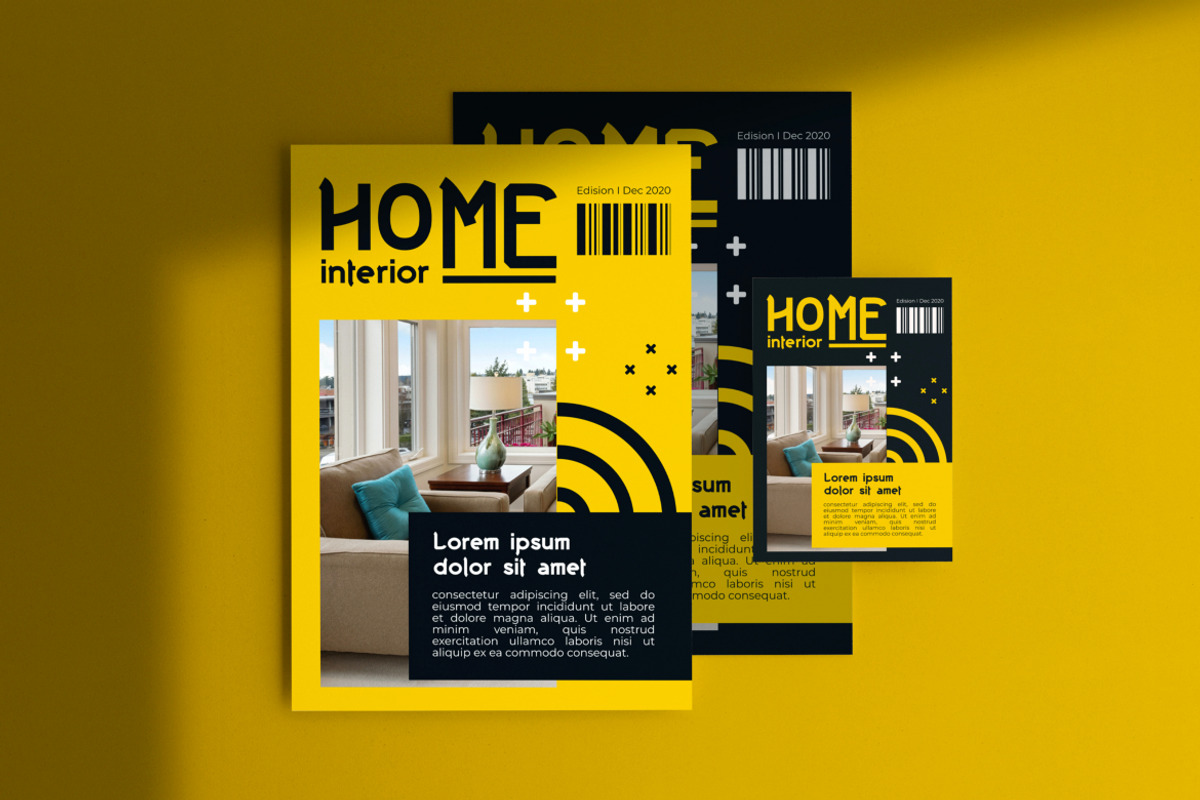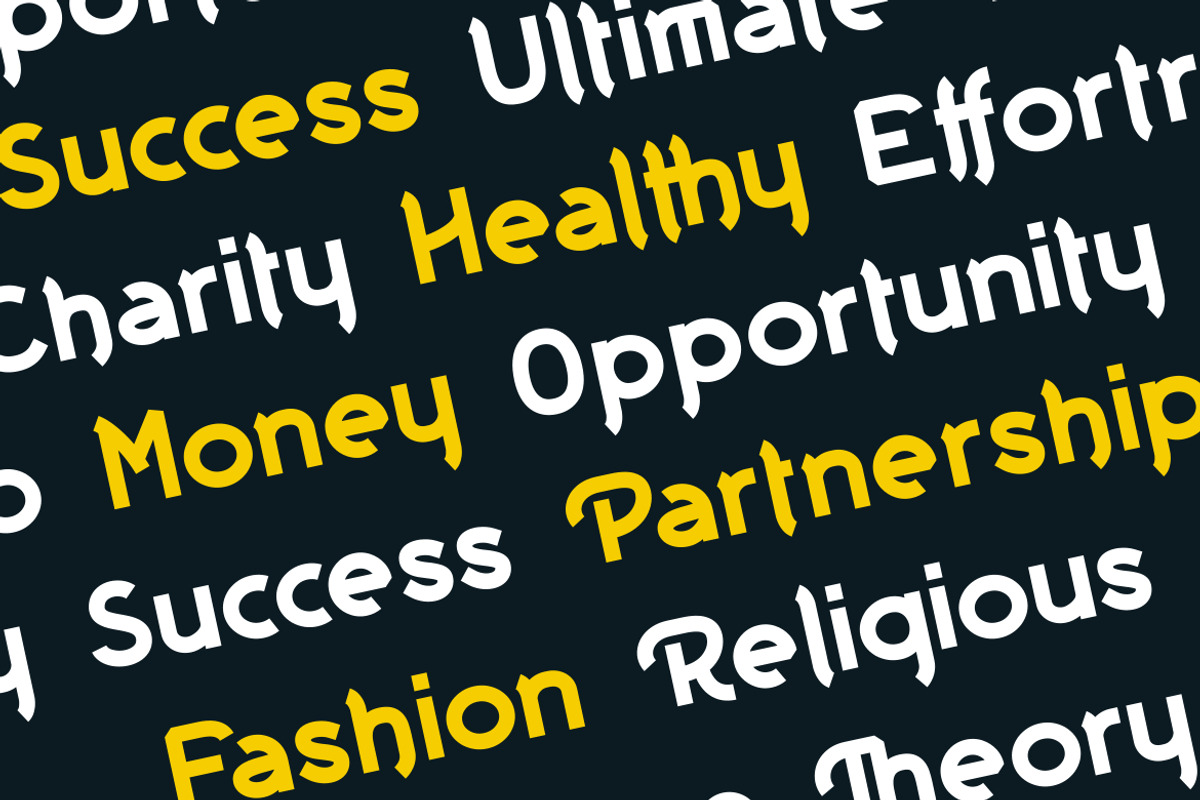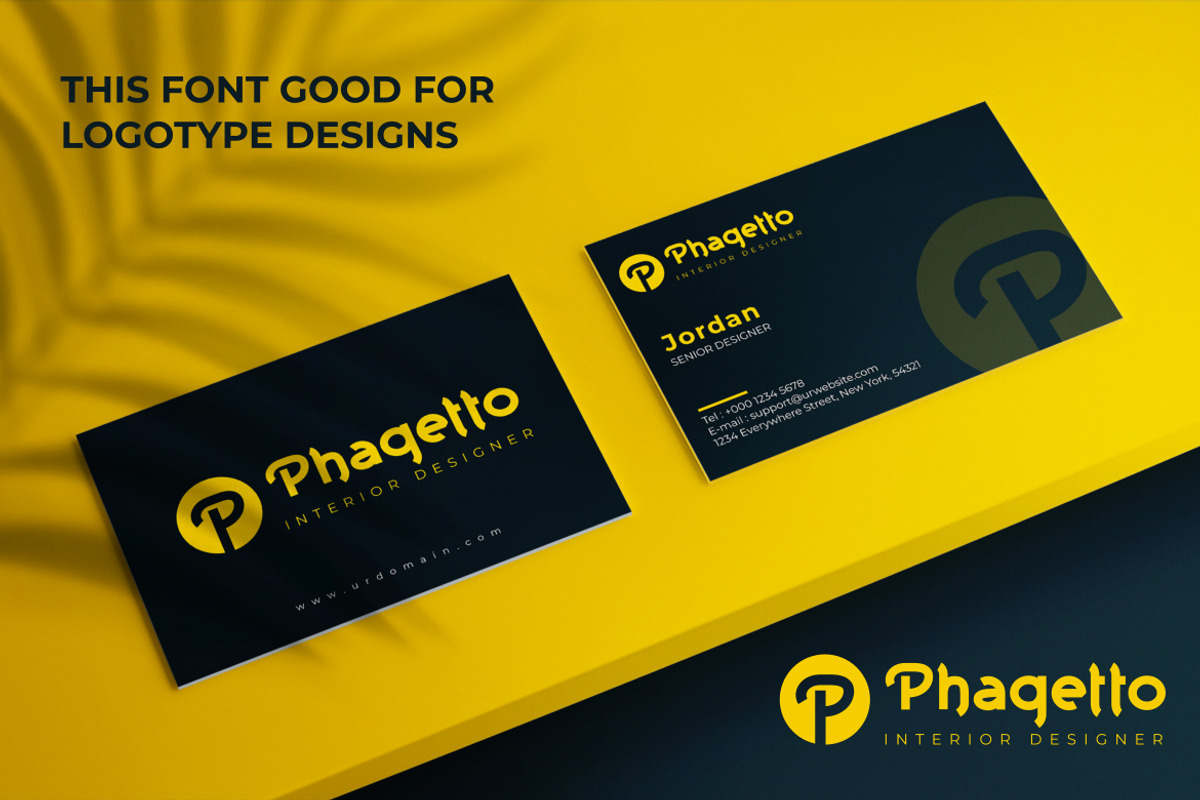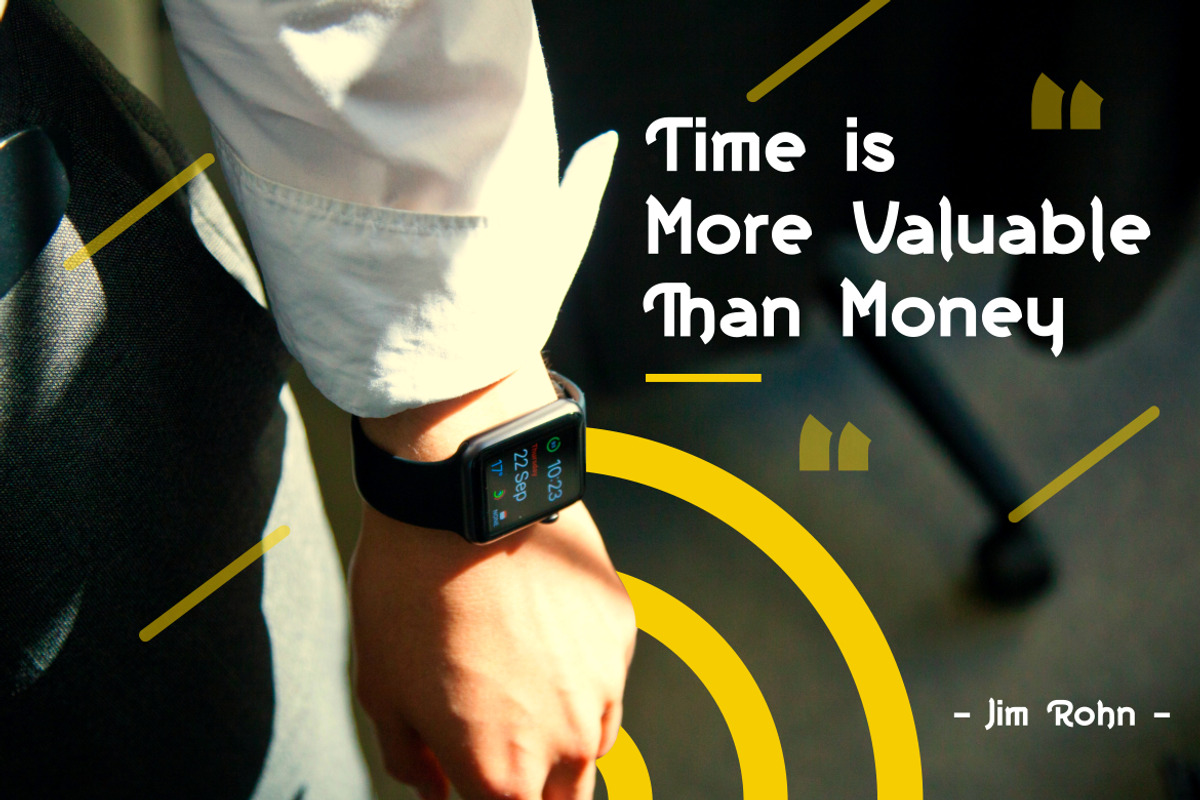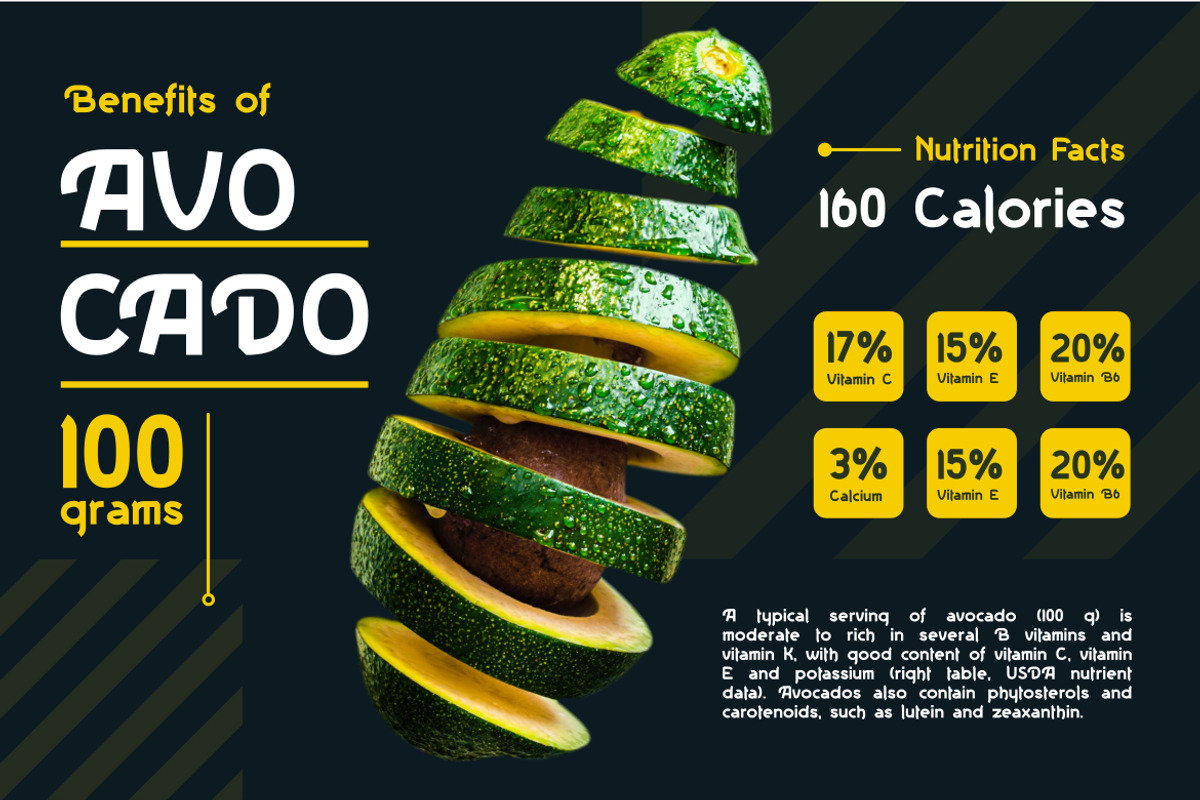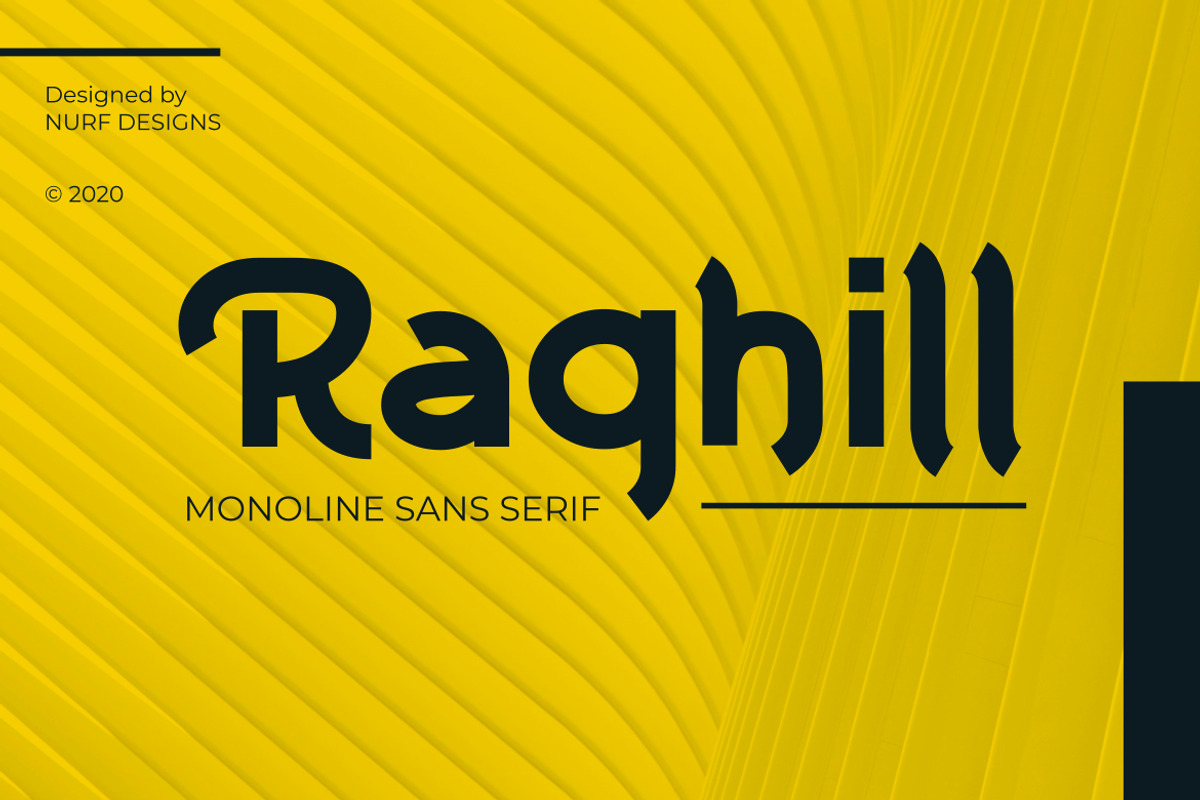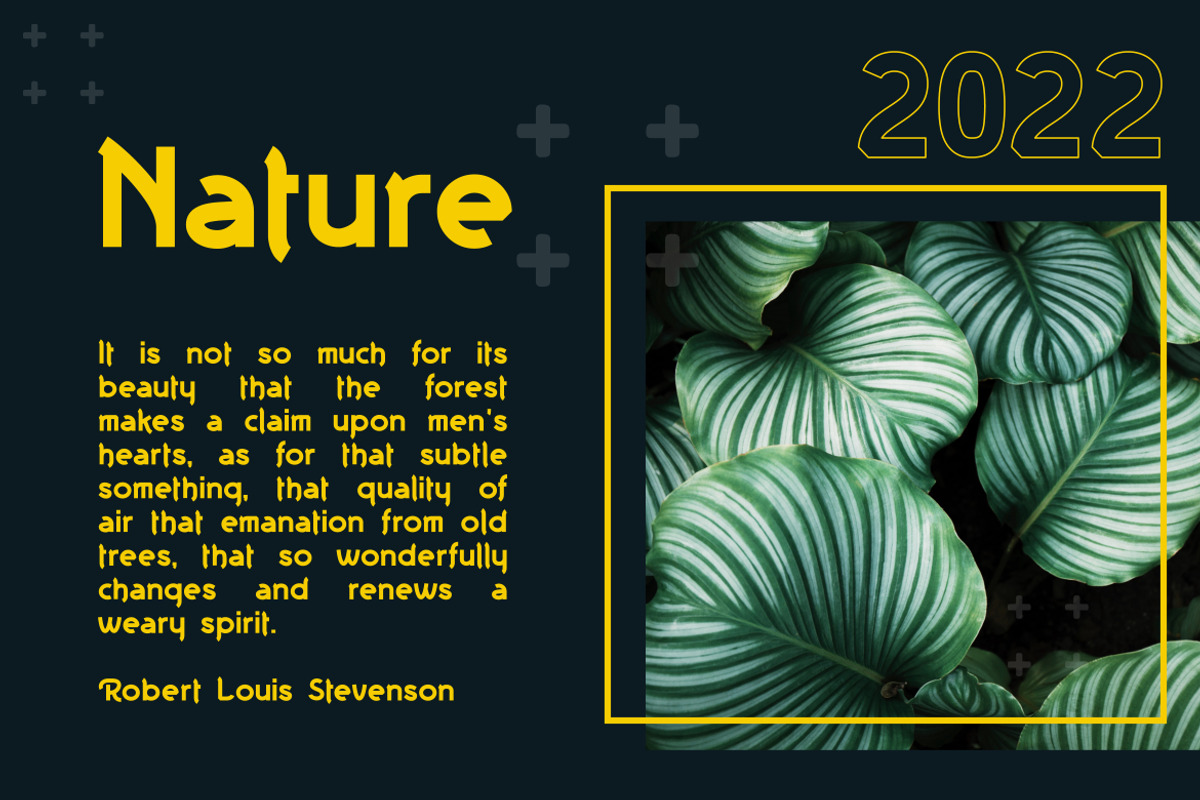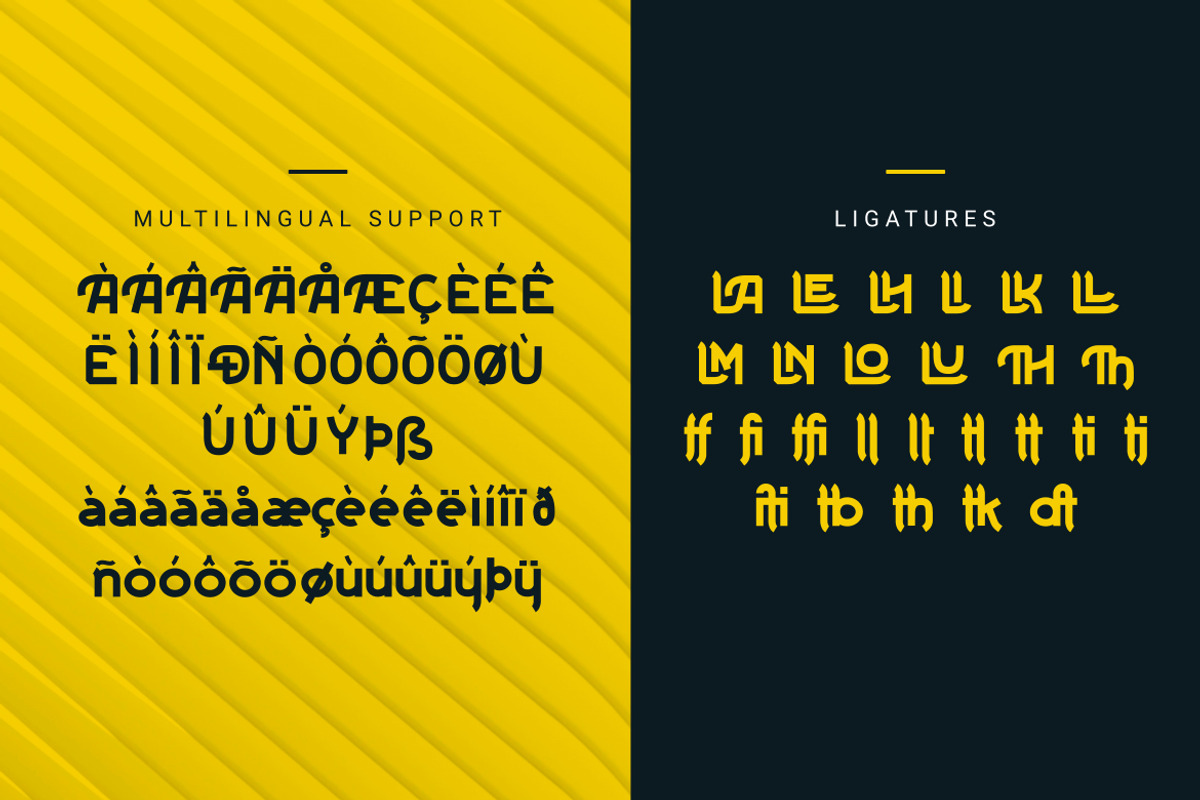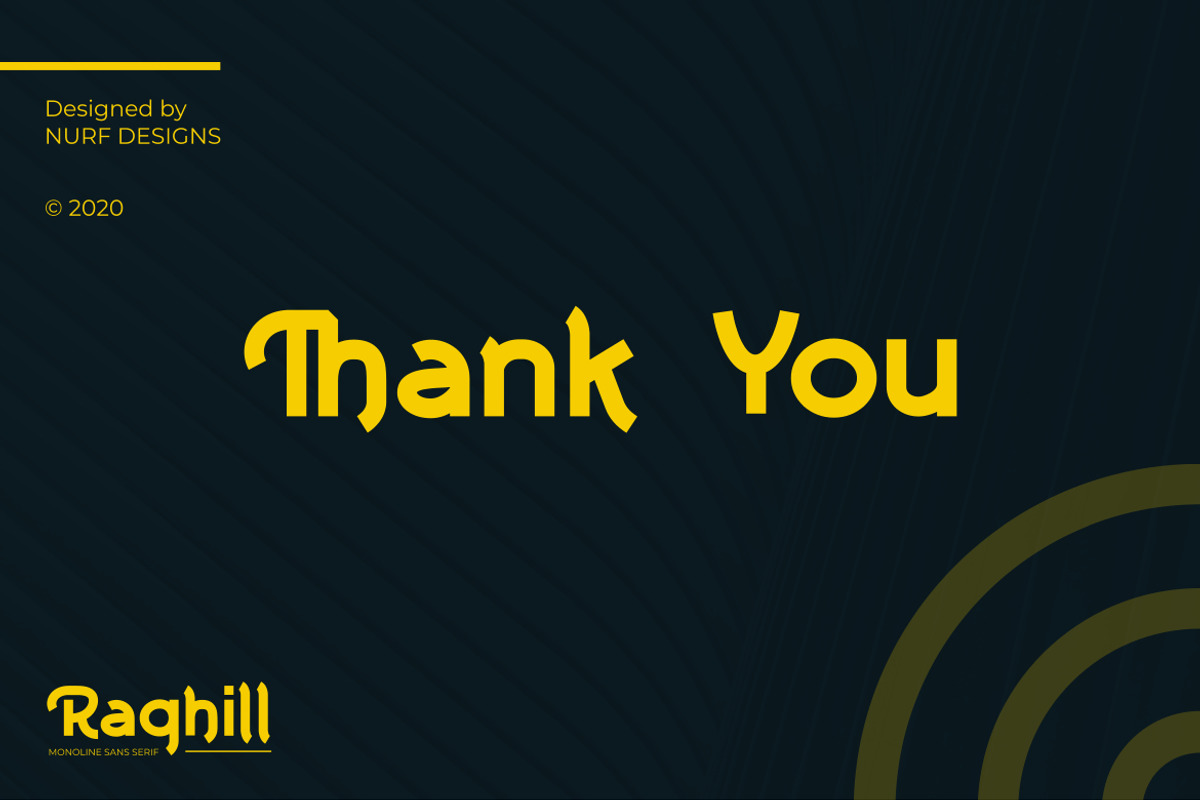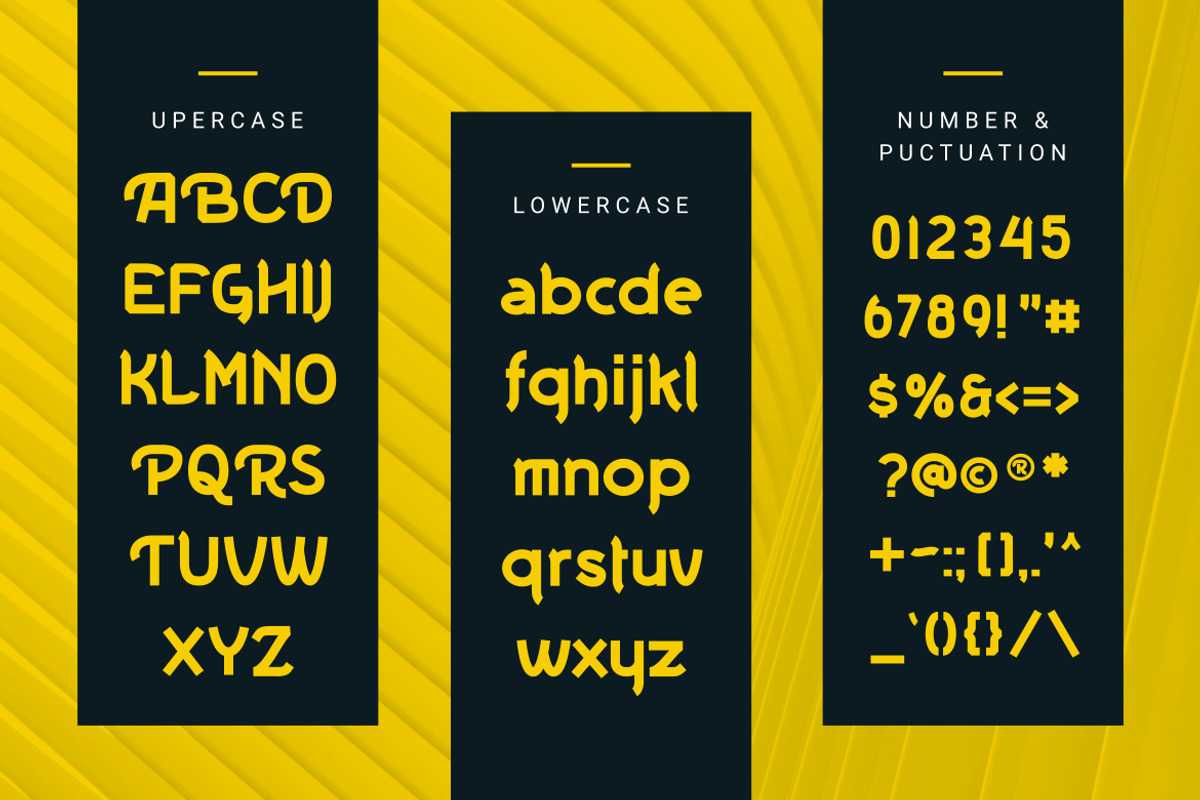
Raghill – Monoline Sans Serif
Raghill is a sans serif font created using monoline. Its very modern and classy appearance makes it very suitable for use in your design needs to make it look better. Masterfully designed to become a true favorite, this font has the potential to bring your creative ideas to the highest level!